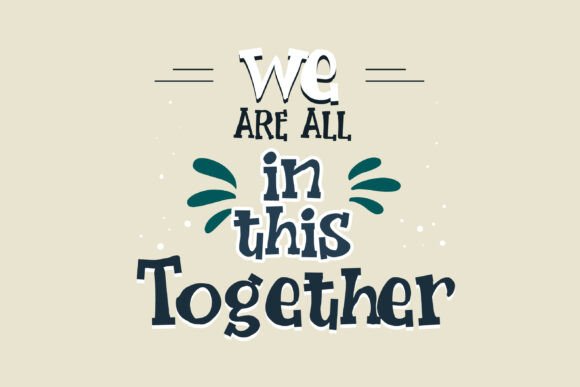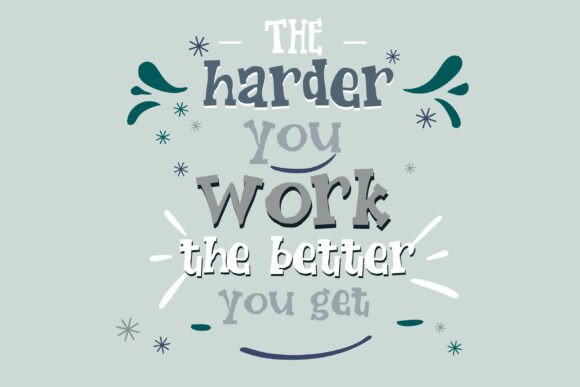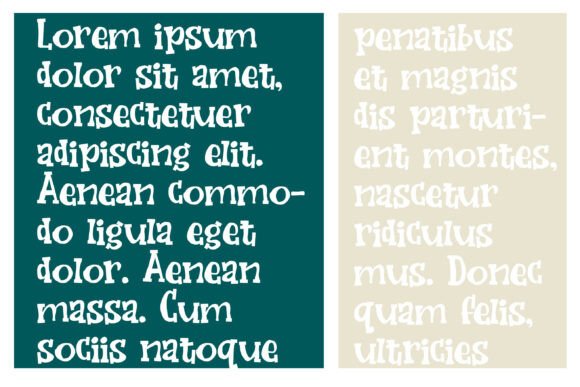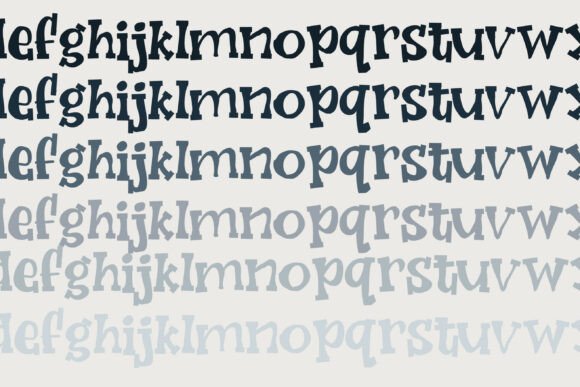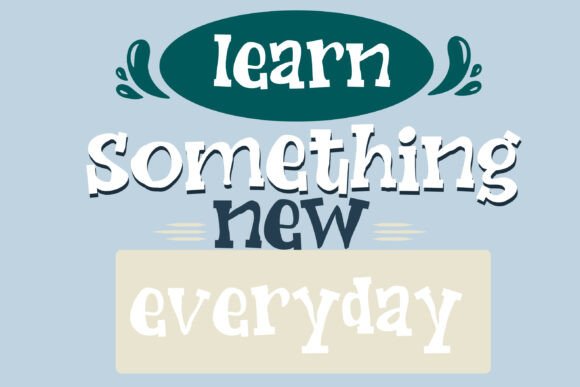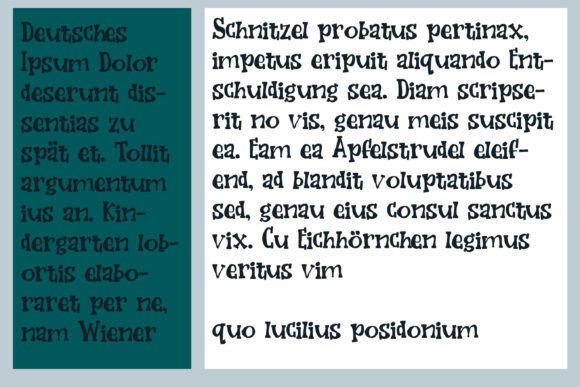
Introduction to Chinatic Font
Add a touch of handmade charm to your project with Chinatic, a lively display serif that captures a “doodled-and-delightful” soul.
This font features bold, asymmetrical letterforms uniquely characterized by rhythmic, hand-drawn imperfections and blocky serifs that bridge the gap between classroom notebook sketches and modern boutique branding With its playful structural weight and approachable personality, Chinatic is the premier choice for independent stationery identities, boutique craft supply logos, primary education materials, and high-impact “creative-and-quirky” social media headers.